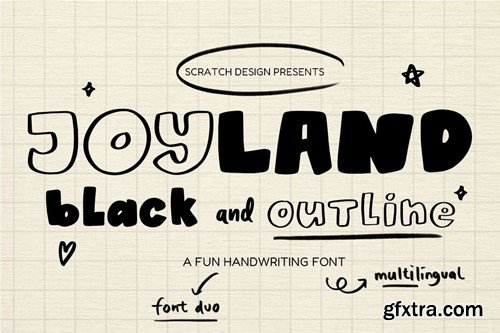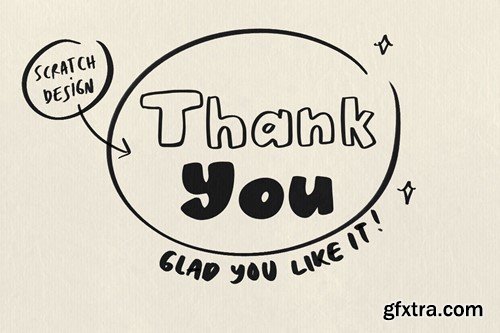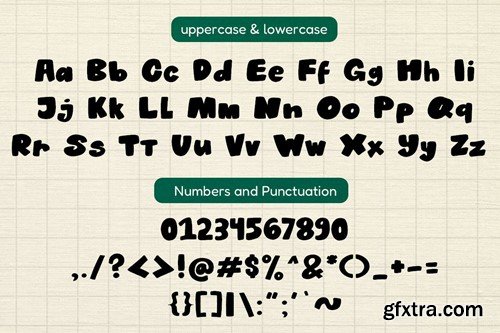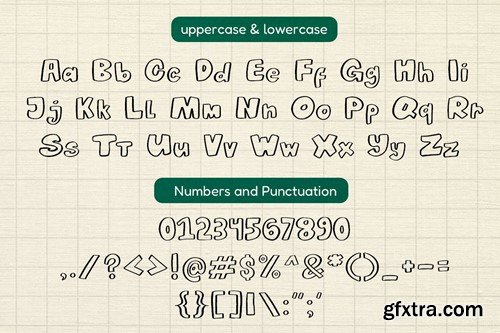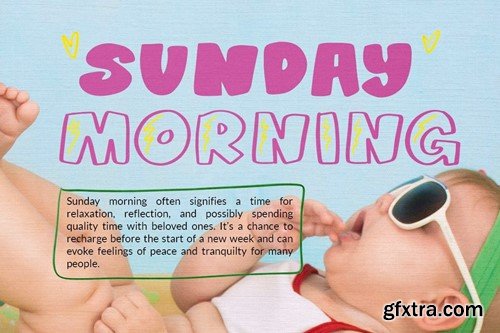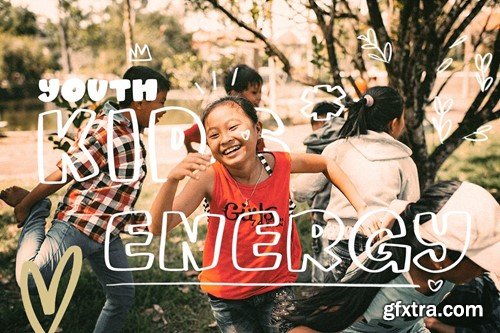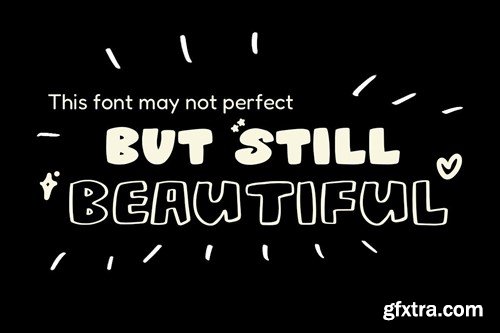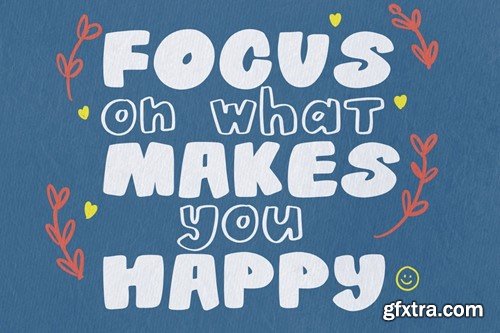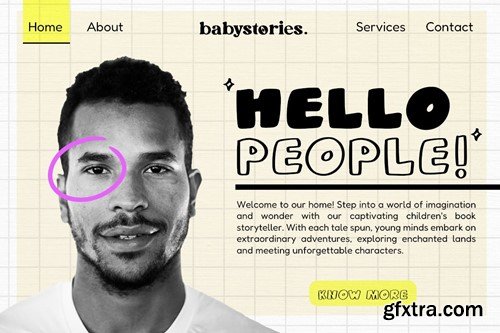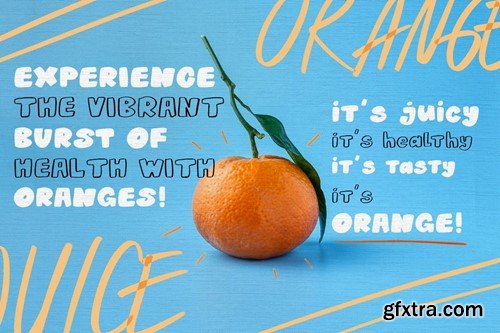
Joyland Font Duo
Introducing JOYLAND FONT DUO!
This font has two characters, BLACK and OUTLINE with a doodle handwriting style. You can mix and match to make a fun and happy design. This font will be great for posters, branding, logos, social media, quotes, art and other designs that need dynamic and unique character.
• Two styles BLACK and OUTLINE
• Uppercase and Lowercase
• Numbers & punctuation
• Multilingual support